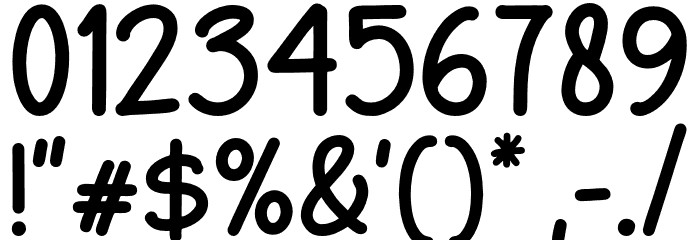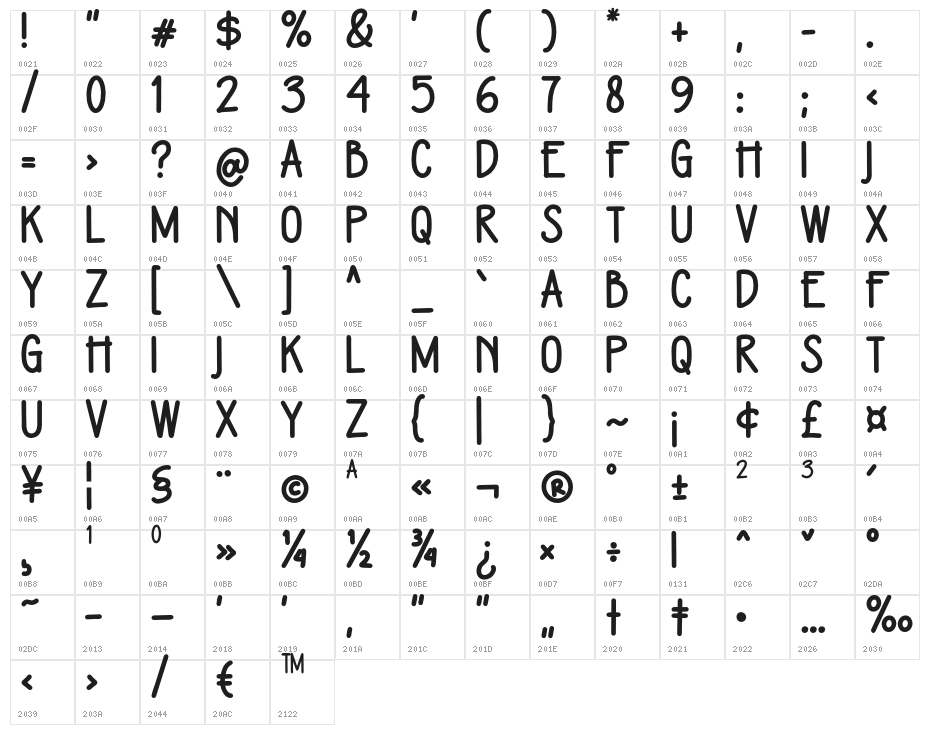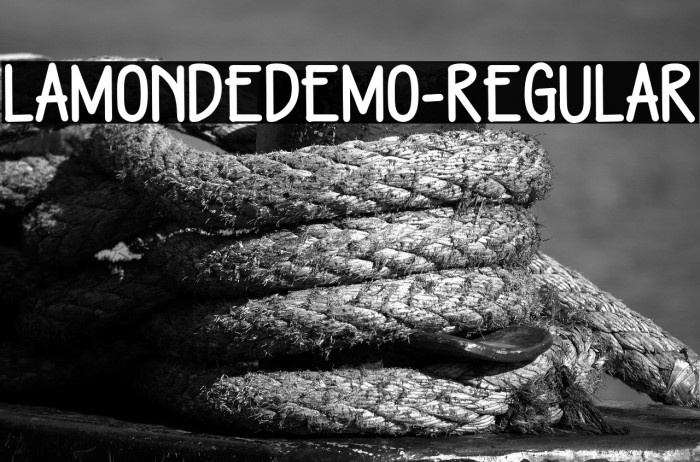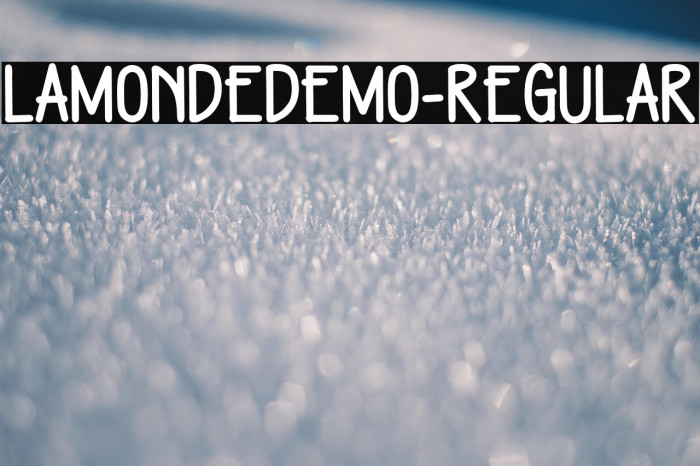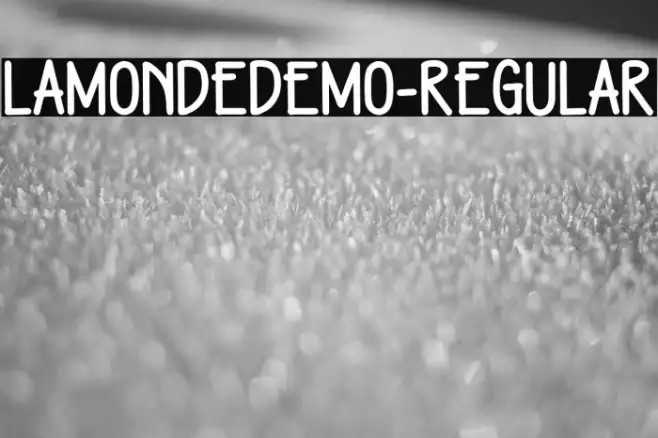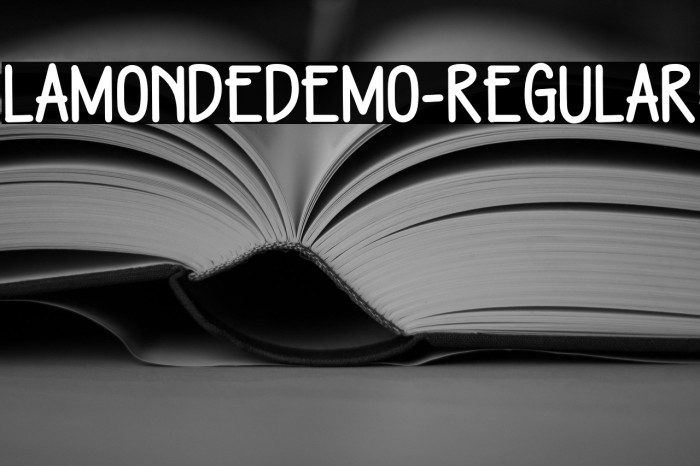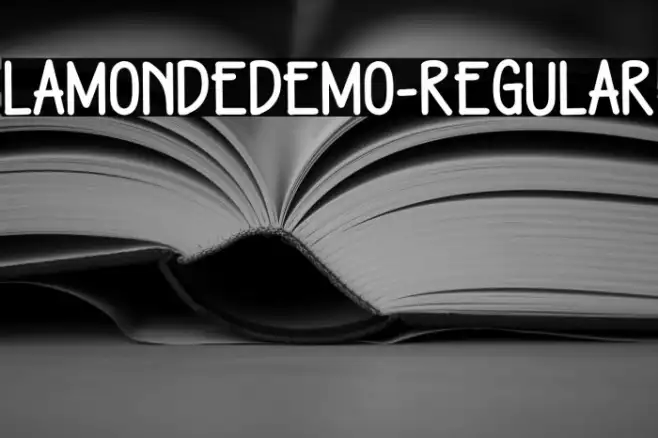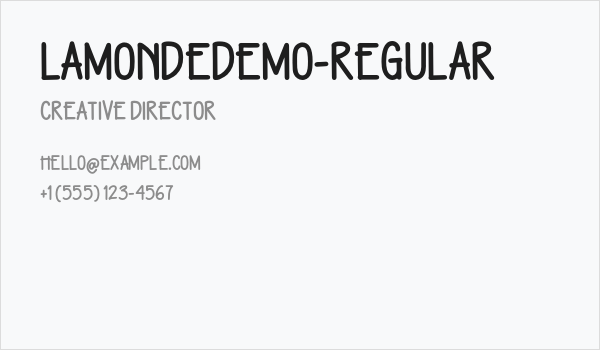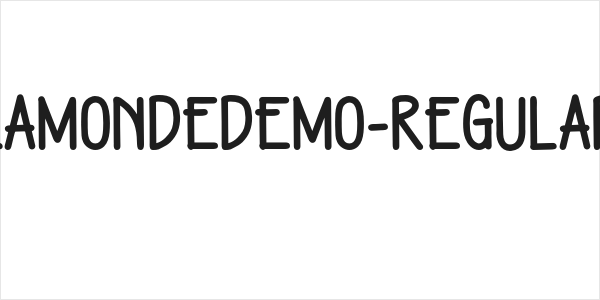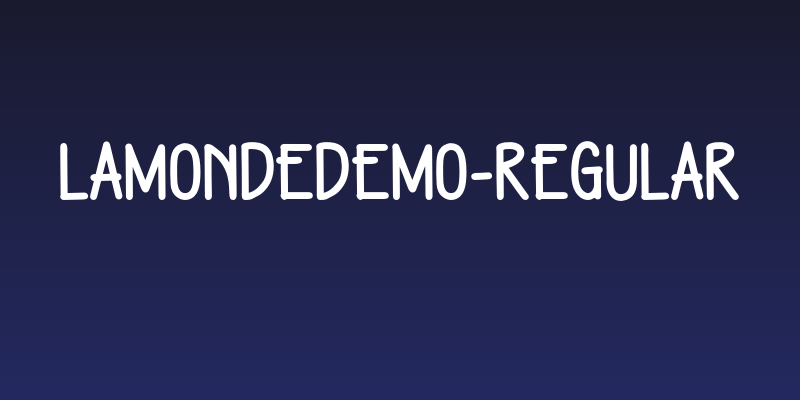
LamondeDEMO-Regular Font
LamondeDEMO-Regular Description
This font features a playful and casual handwritten style, characterized by rounded edges and a slightly uneven baseline that adds a sense of whimsy and approachability. The letters are bold and have a consistent stroke width, giving them a strong presence on the page. The numerals and special characters maintain the same playful aesthetic, ensuring a cohesive look across all text elements. Its informal style makes it ideal for projects that aim to convey friendliness and creativity.
| Proposed Projects | Ideal for children's books, greeting cards, casual branding, and social media graphics. |